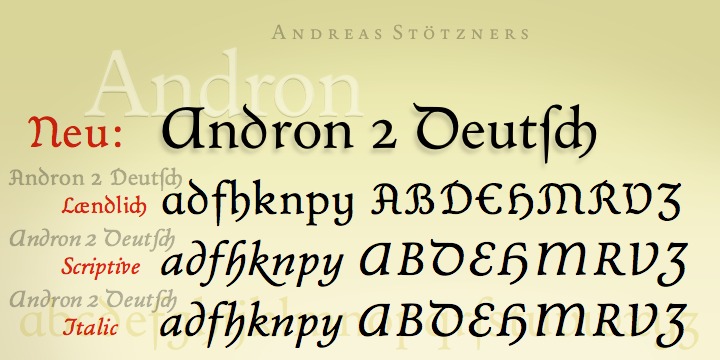
The sister fonts Andron 2 English and Andron 2 Deutsch provide a groundbreaking new possibility to render literature text bodies in a sophisticated traditional and yet modern way of type.
In German typographic history there has once been a long-lasting struggle called the Frakturstreit (the blackletter quarrel). It was about German text to be composed rather in blackletter or possibly in Roman type, a question upon which even Goethe, Schiller and other period celebrities got grey over time. However, blackletter type remained alive and has just recently seen an astonishing renaissance. More…
This is not about a blackletter revisionism or some ‘mixture’ concept arguably bridging the gap between either worlds. Andron 2 English and Andron 2 Deutsch offer a new approach to circumvent that old antagonism. As for the lowercase letters I applied certain features of blackletter type onto the glyphs – but entirely abandoned the principle of the broken stroke as such. The result is a lowercase alphabet in the classical Andron style which may be considered an attractive alternative for text in English, German or even other languages. So it’s no longer entirely about choosing between ‘modern’ Roman or ‘ancient’ blackletter only.
Andron 2 English Regular and Andron 2 Deutsch Regular feature the same lowercase glyphs but differ in the majuscules (Andron 2 English has normal Latin capitals).
++++ 2012 + NEW! +++ In response to its growing popularity we now present five new fonts as part of the Andron 2 series. Andron 2 English is completed by an Italic and a Bold font. Andron 2 Deutsch now contains three interesting alternative fonts: Italic, Scriptive and Laendlich. Last but not least – A new set of wonderful classical typographic ornaments is part of the Italic and Scriptive fonts. – You can also purchase these ornaments separately as “Andron Ornamente”.